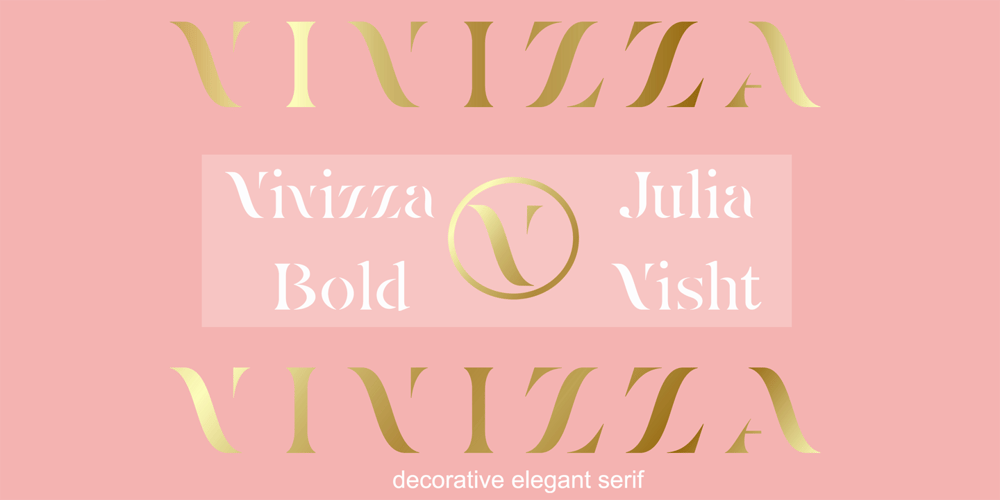
Vivizza
Vivizza font
Vivizza Font Family was designed by Julia Kruk and published by Julia Visht. Vivizza contains 1 styles and family package options. Vivizza Bold – Modern, classy and elegant! New stylish multifunctional Serif from Julia Visht!Perfect at large and medium size – Vivizza Bold does well from large eye-catching headlines , to medium headings.Two different models of letter spacing for uppercase and lowercase letters!Carefully constructed built-in opentype kerning pairs to ensure impeccable letter spacing throughout the font.Main features:-Ligatures. Set of opentype ligatures allows to make your design truly unique.-Great for web-design, logo creating, modern branding, posters, headers, advertising and so much more.-Multilingual support. English, German, Italian, French, Danish, Norwegian, Swedish, Italian, Spanish, Filipino, Scottish Gaelic,Indonesian, Irish, Swiss German, Portuguese, Finnish.Stylish Serif for Stylish Projects!